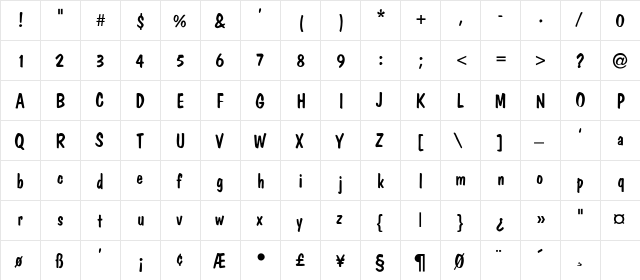
DomCasual-Thin Regular Font Preview
DomCasual-Thin Regular
Design Context for DomCasual-Thin Typeface
DomCasual-Thin is a composed and adaptable typeface that performs quietly and consistently across a wide range of design contexts. Its slender proportions lend an understated elegance to any composition.